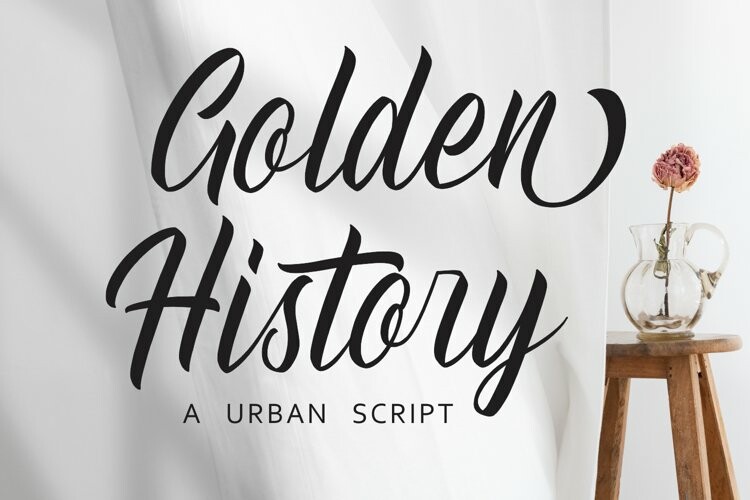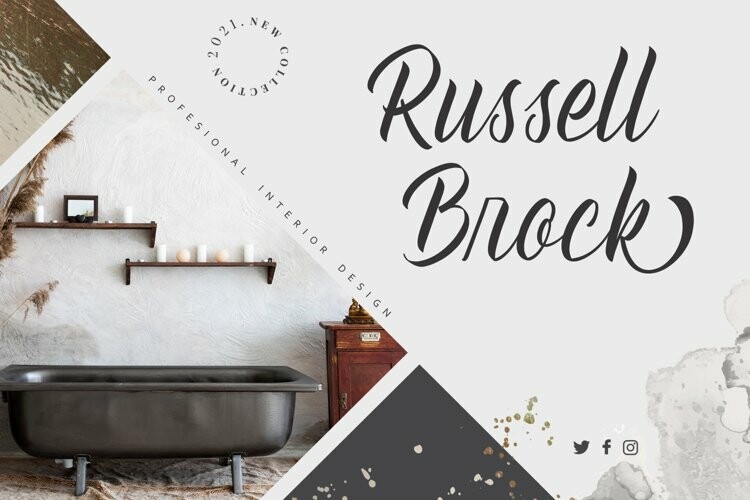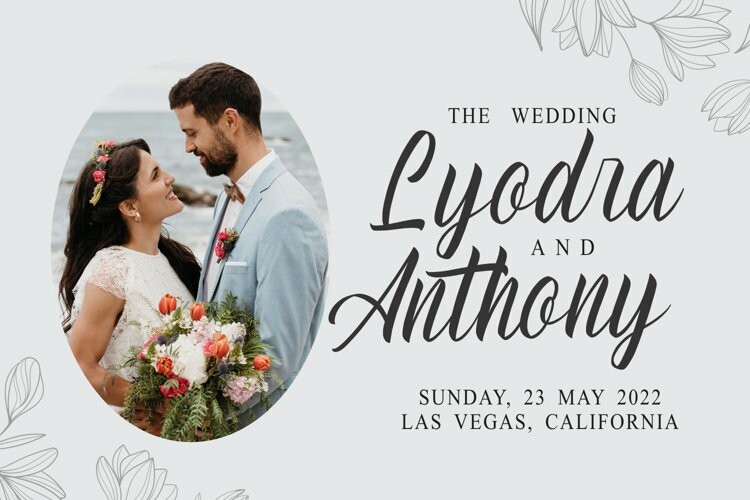
Golden History – Urban Script Font
Golden History - Urban Script FontGolden History s a retro script font with a nostalgic touch and vibe. Whatever the topic, this font will be a wonderful asset to your font library, as it has the potential to enhance any creation.
And it is an incredibly distinct, delicate, and timeless handwritten font.
It looks stunning on wedding invitations, thank you cards, quotes, greeting cards, logos, business cards, and every other design which needs a handwritten touch.